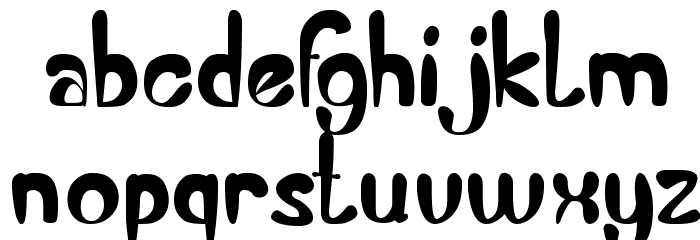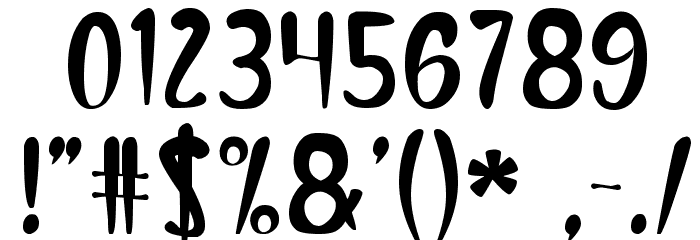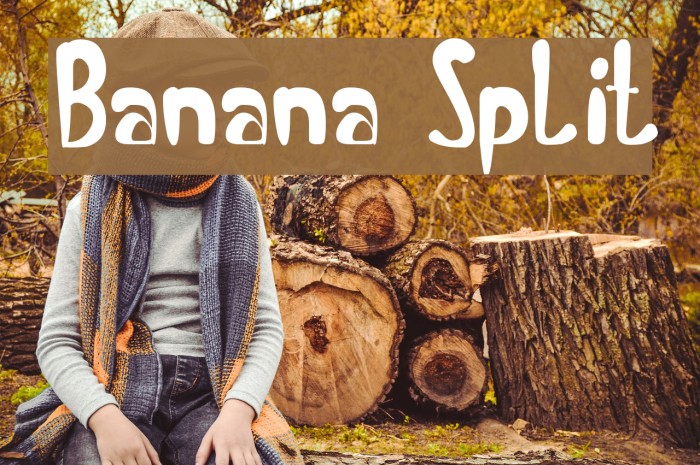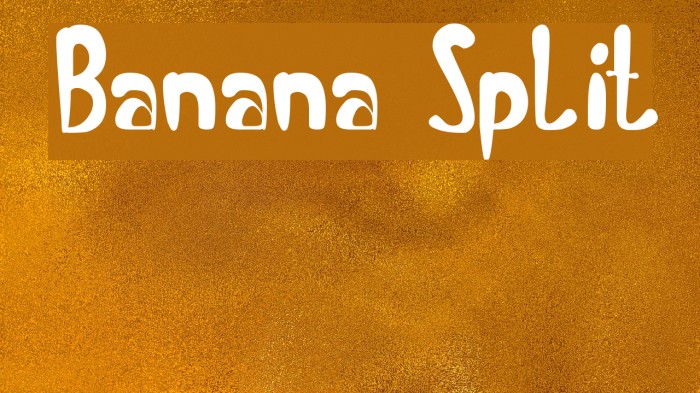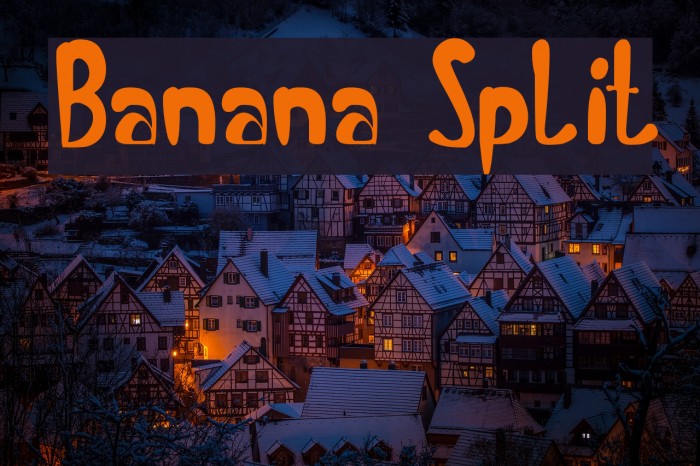
Banana Split Font
This playful and whimsical font features bold, rounded characters with a hand-drawn aesthetic. The uppercase and lowercase letters have a consistent thickness, giving them a cohesive look. The characters are slightly irregular, adding a sense of fun and creativity. The numbers and special characters maintain the same playful style, making them suitable for a variety of informal and creative projects. The font's unique style is eye-catching and memorable, perfect for designs that aim to stand out.
A playful, hand-drawn font with bold, rounded characters.
- Proposed Projects: Ideal for children's books, playful branding, party invitations, and creative posters.
- Overall Style: Playful, Whimsical